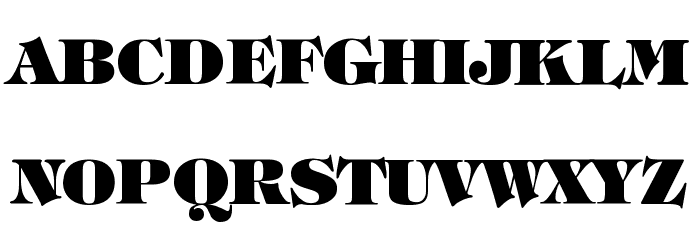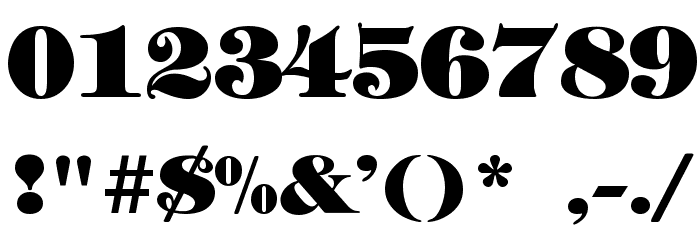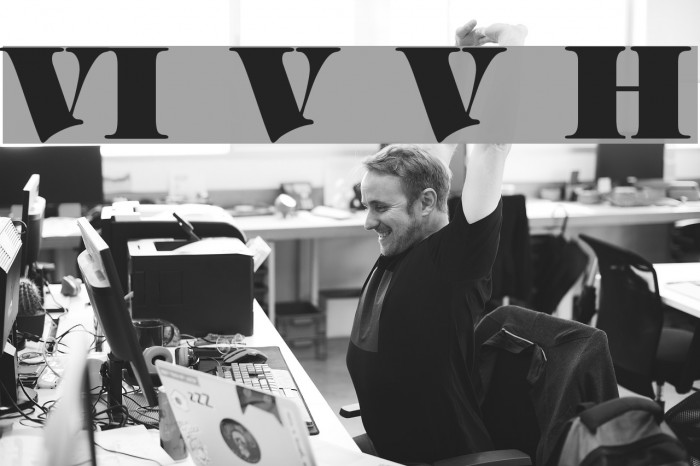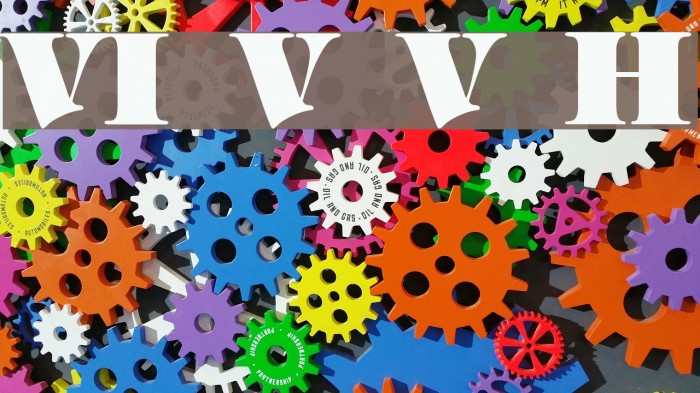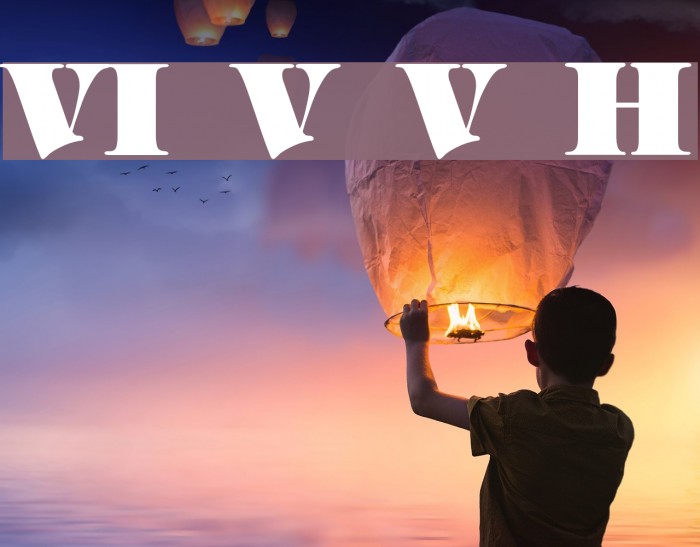
VI Vong Vang Hoa Font
This font features a bold and striking design with a strong presence, characterized by thick, block-like serifs and a high contrast between thick and thin strokes. The uppercase letters are particularly prominent, with sharp angles and a sense of grandeur. The lowercase letters maintain the boldness, offering a cohesive look throughout. Numbers and special characters are equally bold, with unique flourishes that add a decorative touch. The overall style is reminiscent of vintage or classic poster fonts, making it ideal for attention-grabbing headlines or logos.
A bold, high-contrast serif font with vintage flair.
- Proposed Projects: Ideal for vintage-themed posters, branding, and logo design, as well as any project requiring a bold, eye-catching headline.
- Overall Style: Vintage